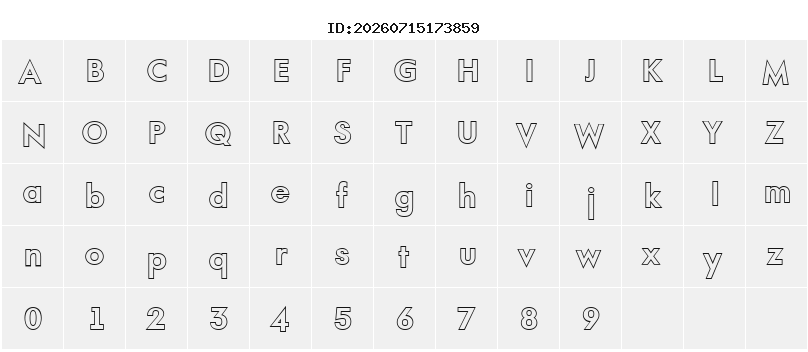
a_FuturaOrtoOtl Preview
• Font Name: a_FuturaOrtoOtl
• Font ID: a_FuturaOrtoOtl Bold
• Full Font Name: a_FuturaOrtoOtl Bold
About a_FuturaOrtoOtl.ttf
a_FuturaOrtoOtl.ttf is a modern, elegant sans-serif font designed for ultimate readability and visual harmony. Perfect for branding, headlines, web design, and print materials.